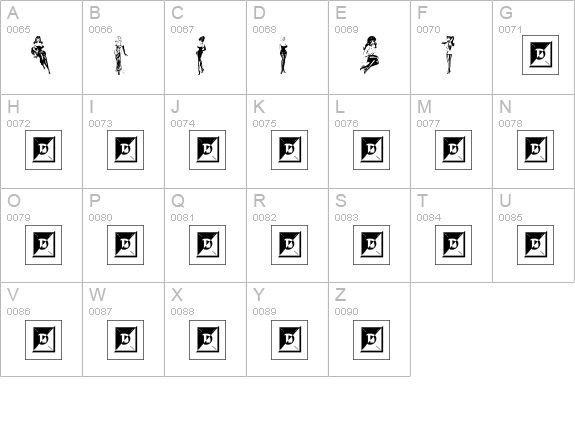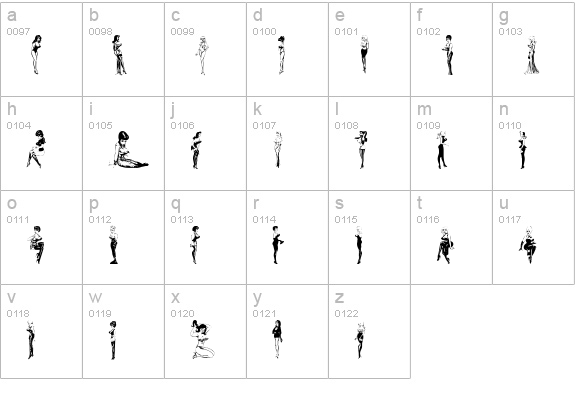
Beauties by Bill Ward Font Details
Beauties by Bill Ward font is a stunning typeface that exudes elegance and sophistication. With its delicate curves and intricate details, this font is perfect for adding a touch of beauty to your designs. Whether you're working on a wedding invitation, a branding project, or any other creative endeavor, Beauties by Bill Ward font is sure to make a statement. The best part? Beauties by Bill Ward font is available for free download at FontsMarket.com. You can easily access this exquisite font and enhance your projects with its timeless charm. Don't miss out on the opportunity to elevate your designs with Beauties by Bill Ward font - download it today and let your creativity shine!